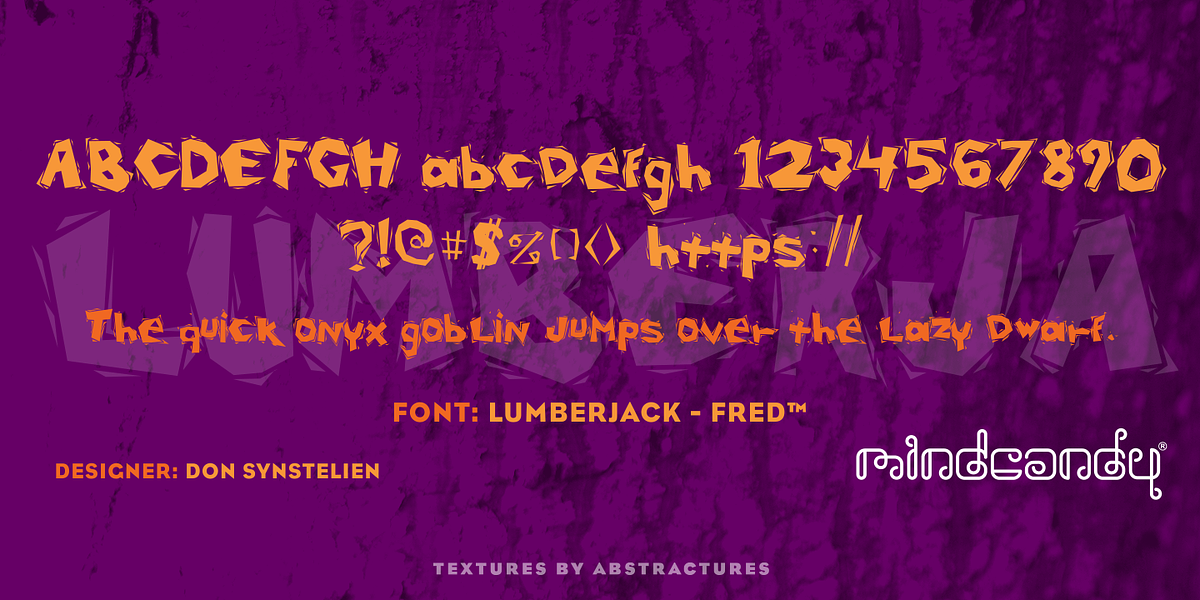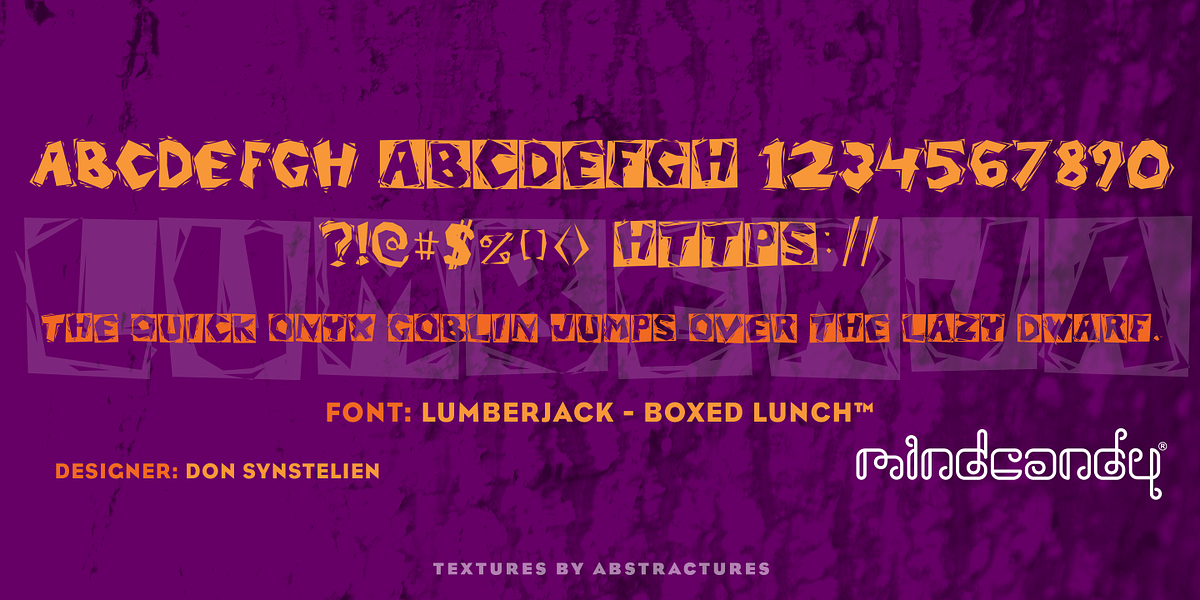
Lumberjack™
This grunge-style font is designed entirely as a set of dingbats. The characters are all uppercase and feature an angular, woodcut aesthetic with some inverted forms for added visual interest. It's well suited for bold branding applications or adding a touch of grungy texture to editorial design.